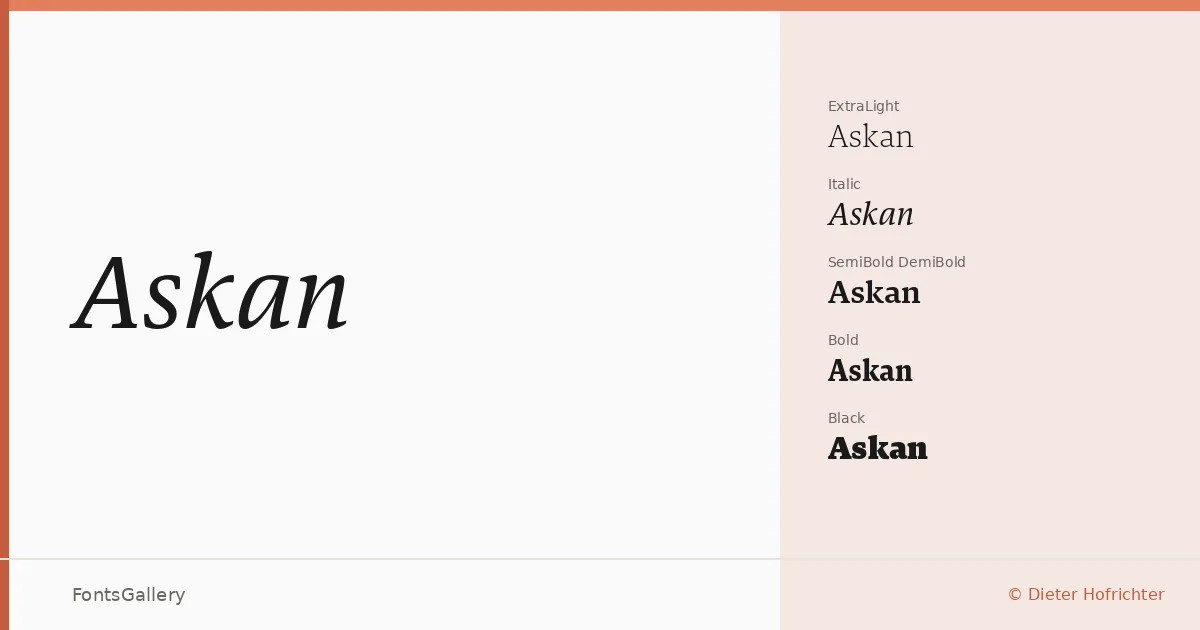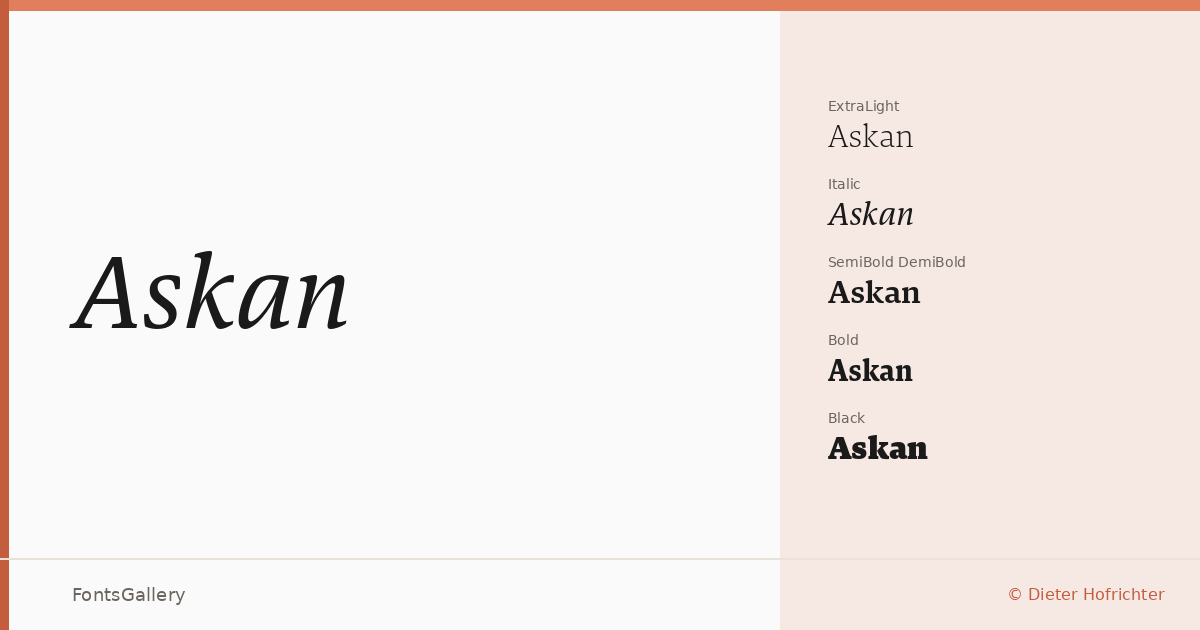
About Askan Font
There is a quiet confidence in the way these serifs sit on the baseline — controlled, unhurried, and clearly the work of a designer who understands optical tension. Askan was drawn by Dieter Hofrichter of Hoftype, and carries his characteristic attention to classical proportion married to contemporary spacing. The contrast between thick and thin strokes is deliberate without being theatrical, giving the letterforms a professional clarity that holds up at display sizes and remains readable at text sizes alike.
This is a serif family with a modern, elegant disposition — the kind of face that reads as both classic and fresh without straining for either quality. It ships in OTF across a substantial range: ExtraLight and ExtraLight Italic through Light, Regular Italic, Medium, DemiBold, Bold, ExtraBold, and on up to Black and Black Italic, with Slim cuts rounding out the heavier end of the spectrum. The Slim variants in the bolder weights are a particularly useful detail, letting headlines breathe at large sizes without sacrificing the family's inherent density. Across every weight, the italic cuts have genuine drawn character rather than a mechanical slant.
The range of weights makes this well-suited to editorial work — magazine layouts, book covers, and long-form brand hierarchies where you need a serif that can carry both a headline and a pull quote without switching families. Logo and branding applications benefit from the heavier cuts, while the ExtraLight and Light handles refined, high-end contexts with ease. Hofrichter has listed it as pairing naturally alongside Helvetica and Aileron on the sans side, and Allura, Ballmain, and Abrade when a contrasting script or display face is needed to soften the composition. Latin script is supported throughout.